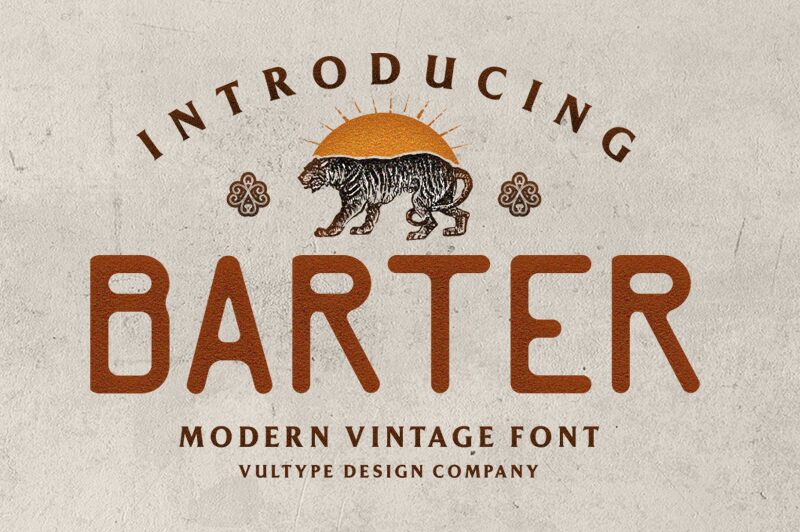
Barter Regular
Barter font by Vultype is a striking display typeface that embodies a retro style with its bold, expanded shapes and playful curves. This free font captures the essence of vintage aesthetics, making it ideal for creating eye-catching headlines and designs that require a nostalgic touch.
The unique character of Barter font stands out in poster designs, branding, and editorial projects where personality and flair are essential. With its vibrant presence and distinctive charm, Barter font offers designers a versatile tool that's both stylish and functional.